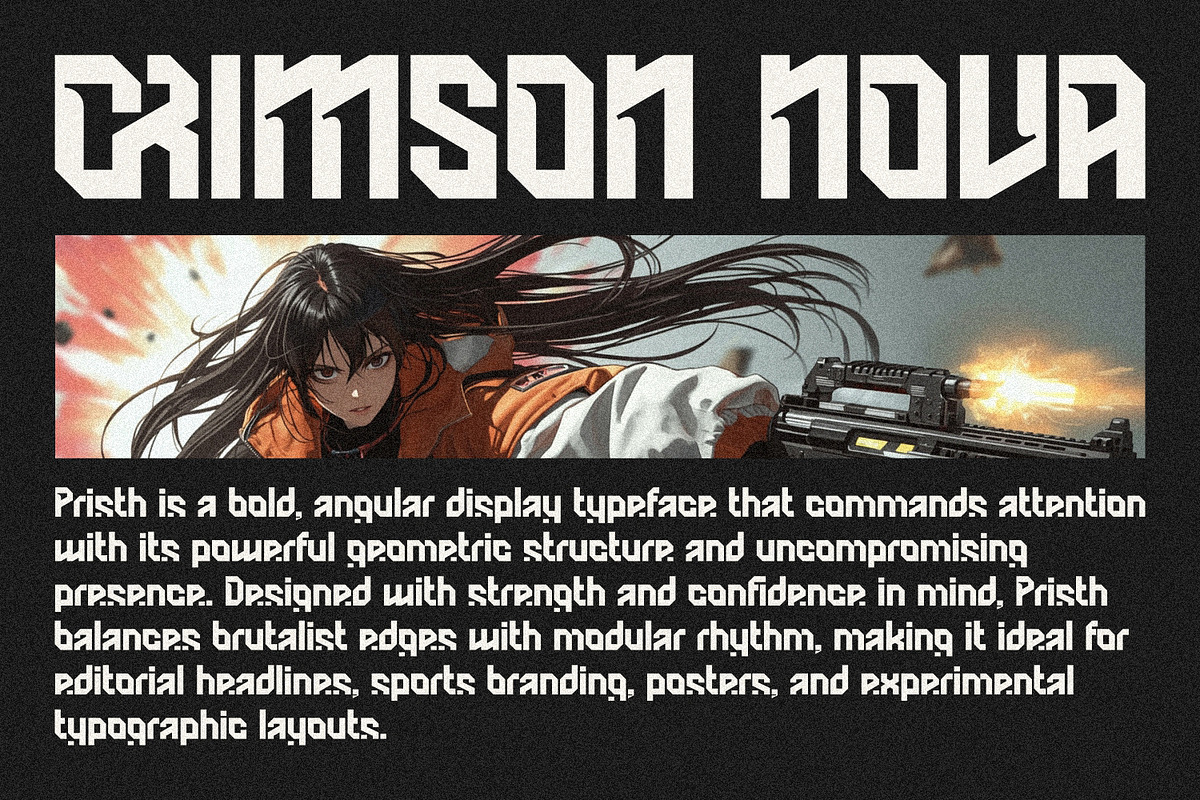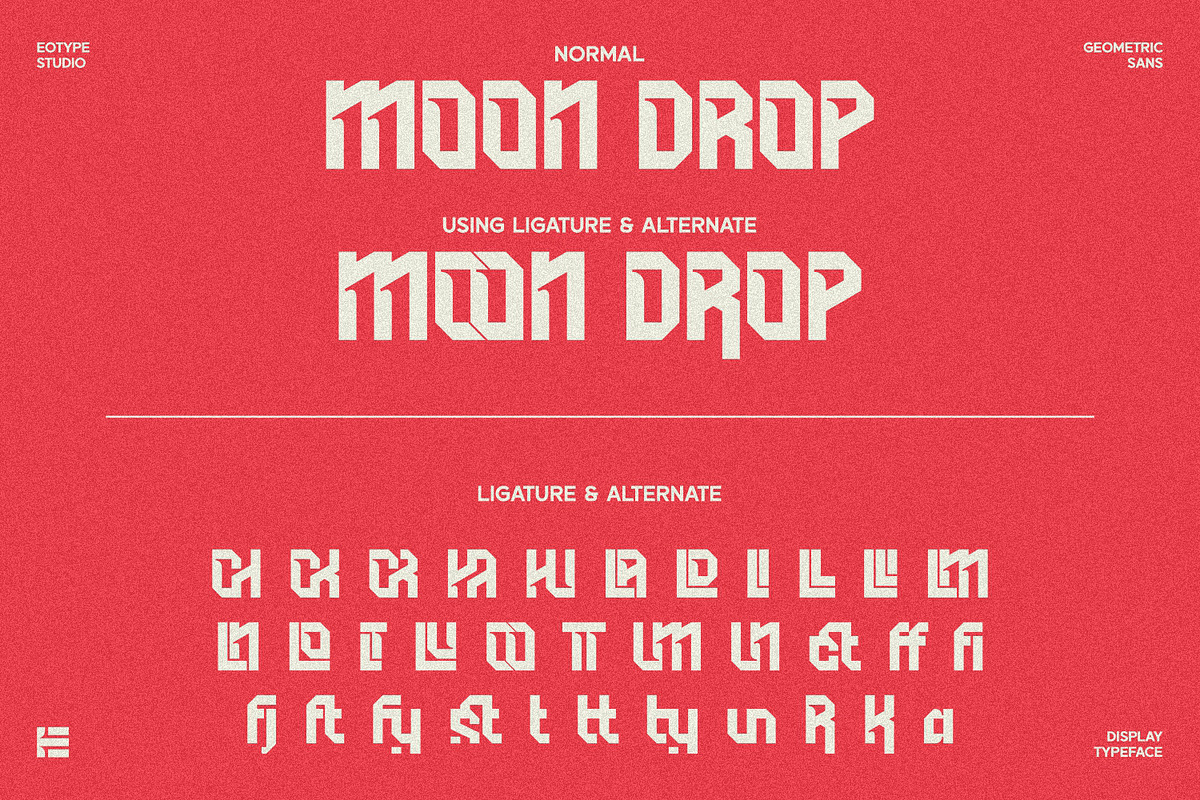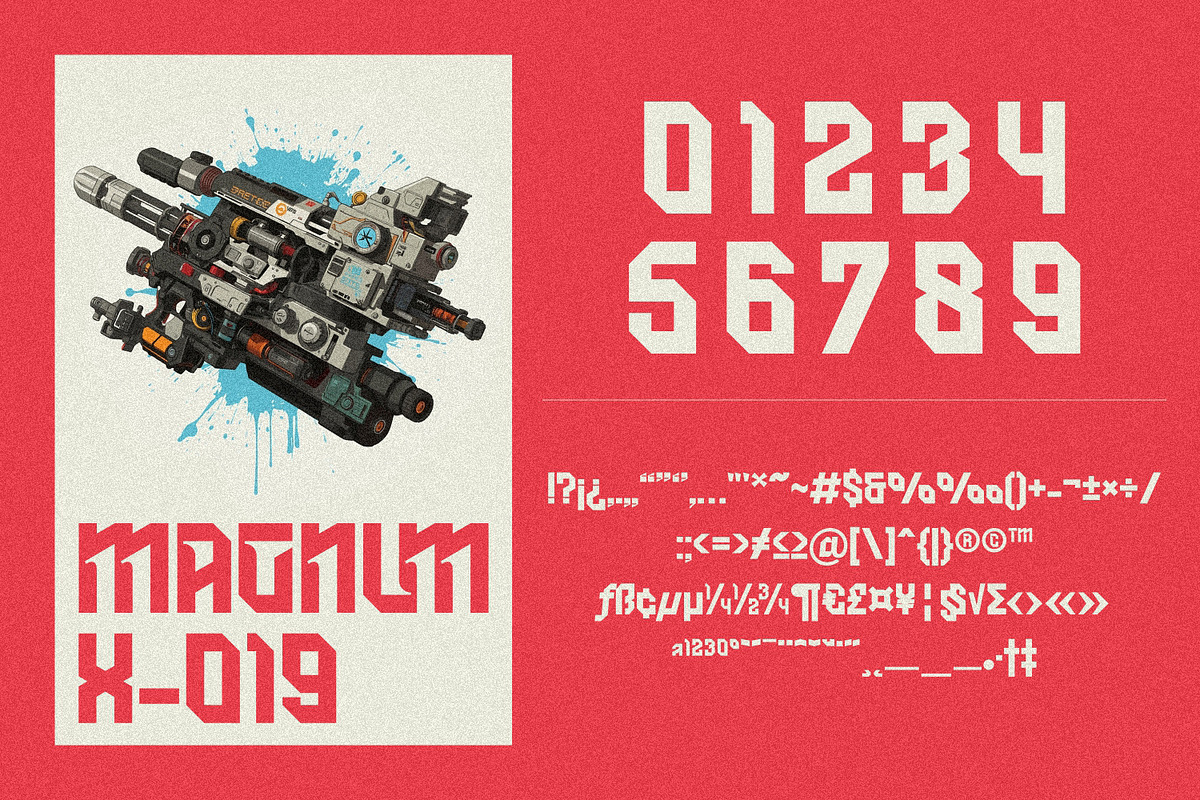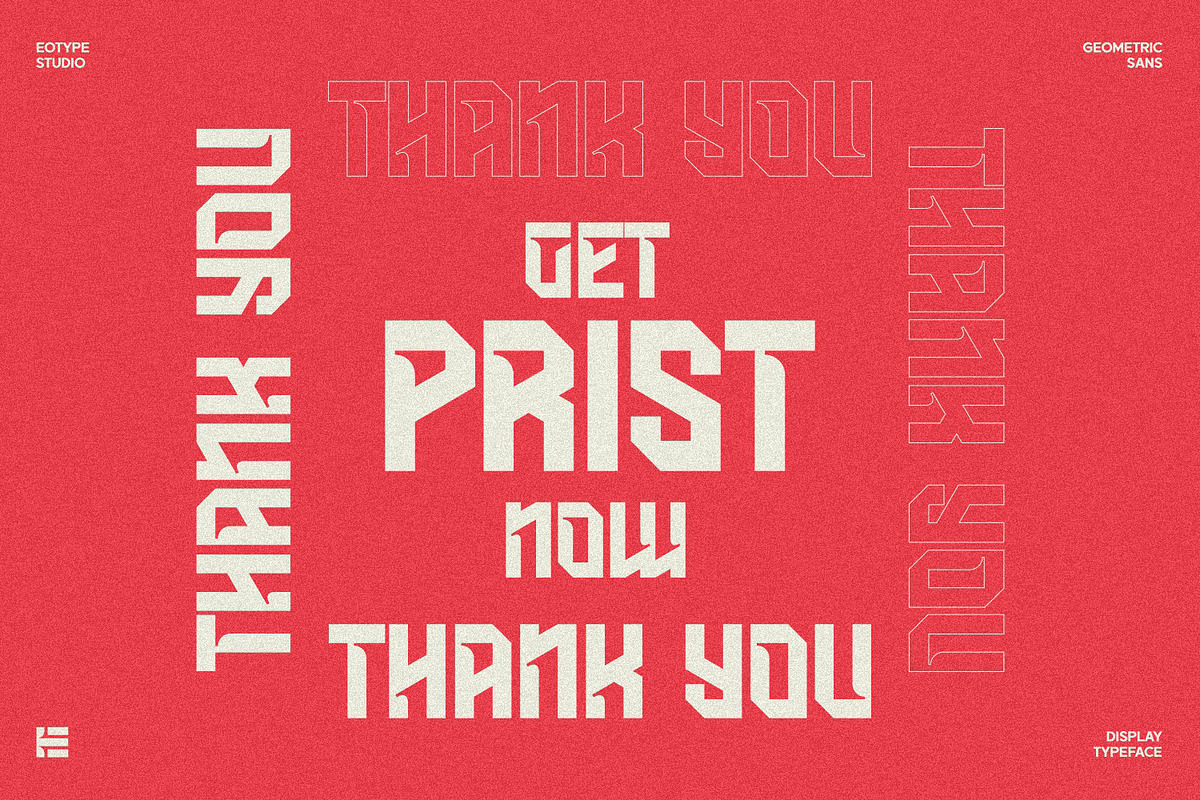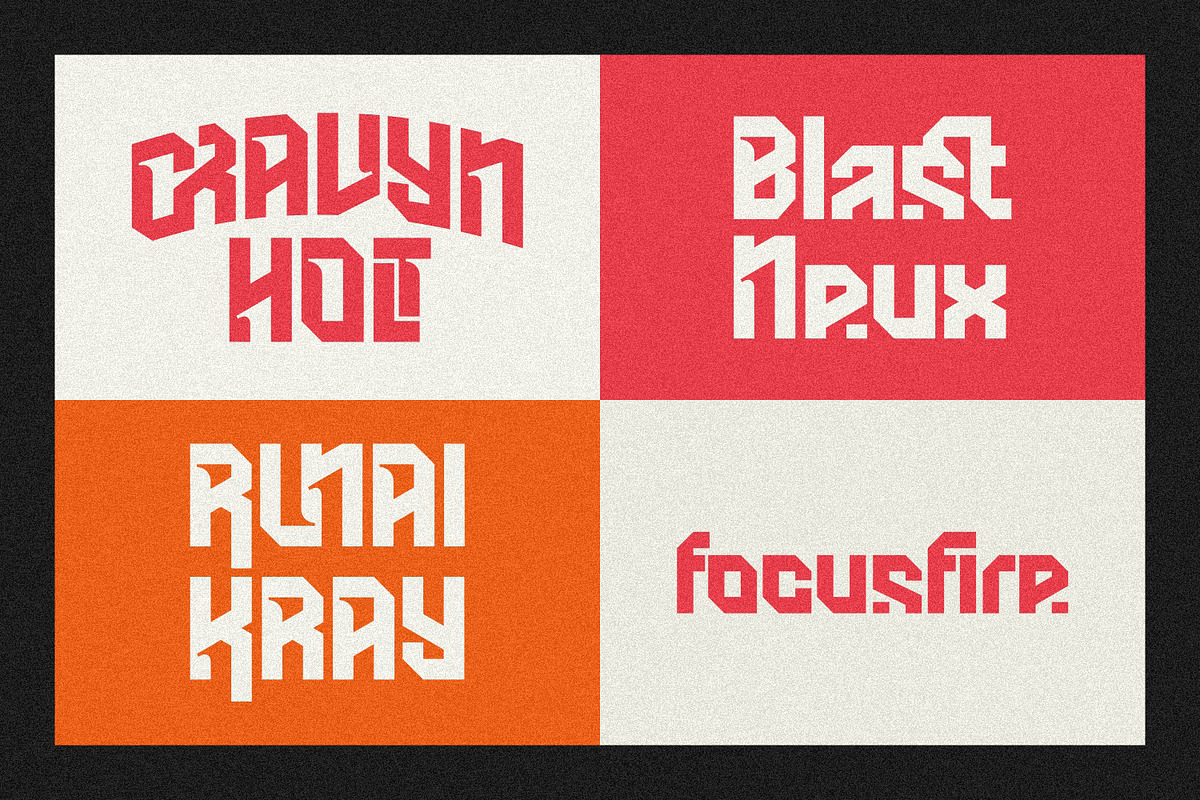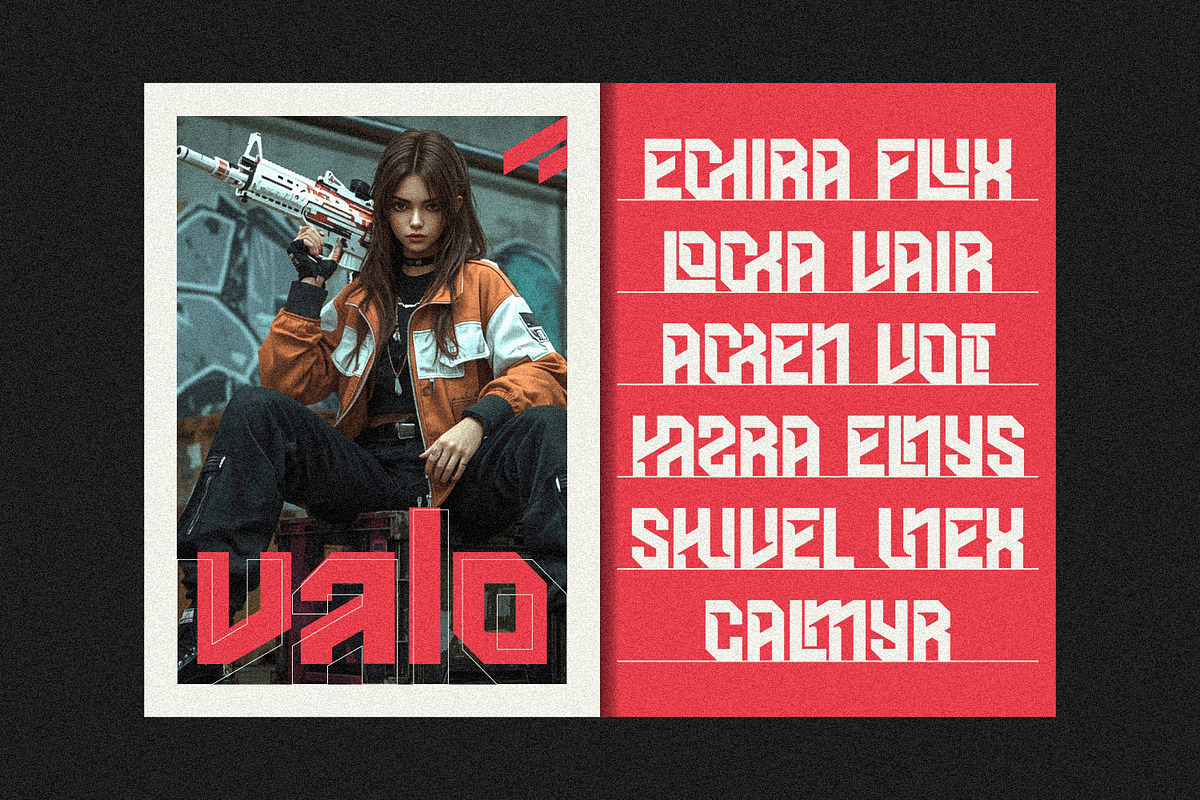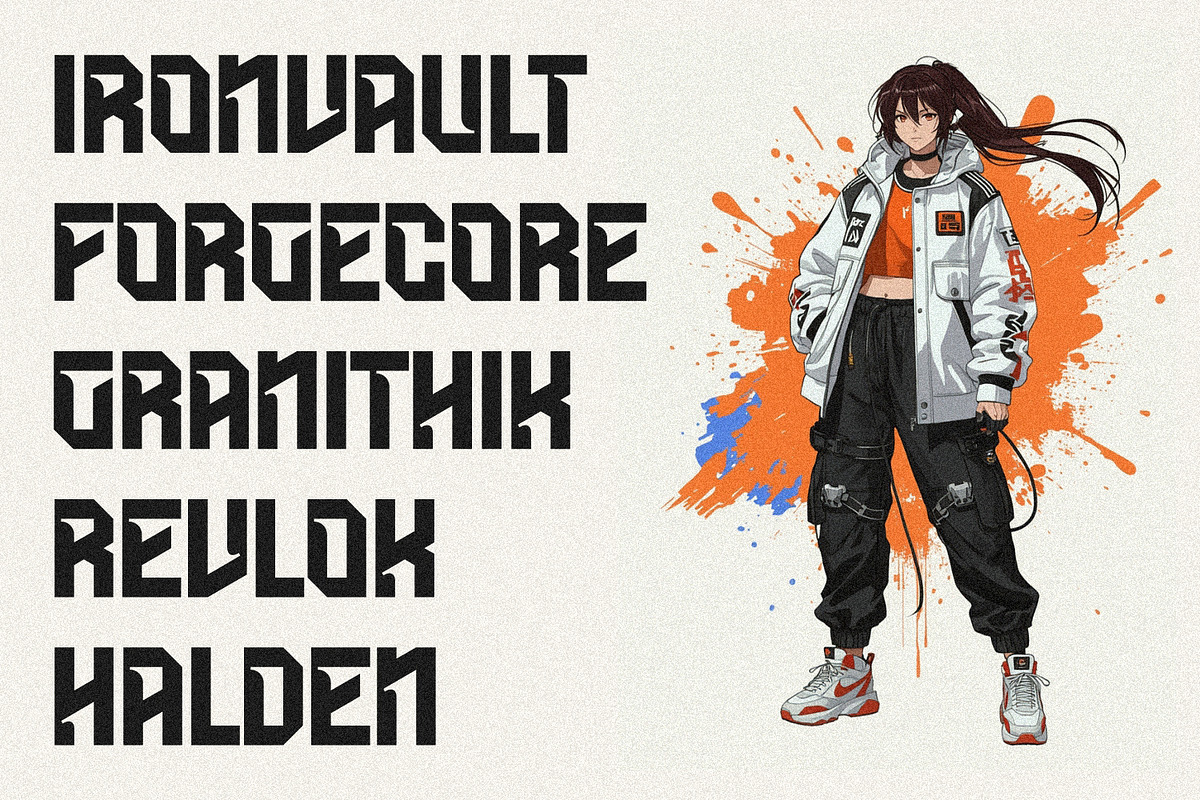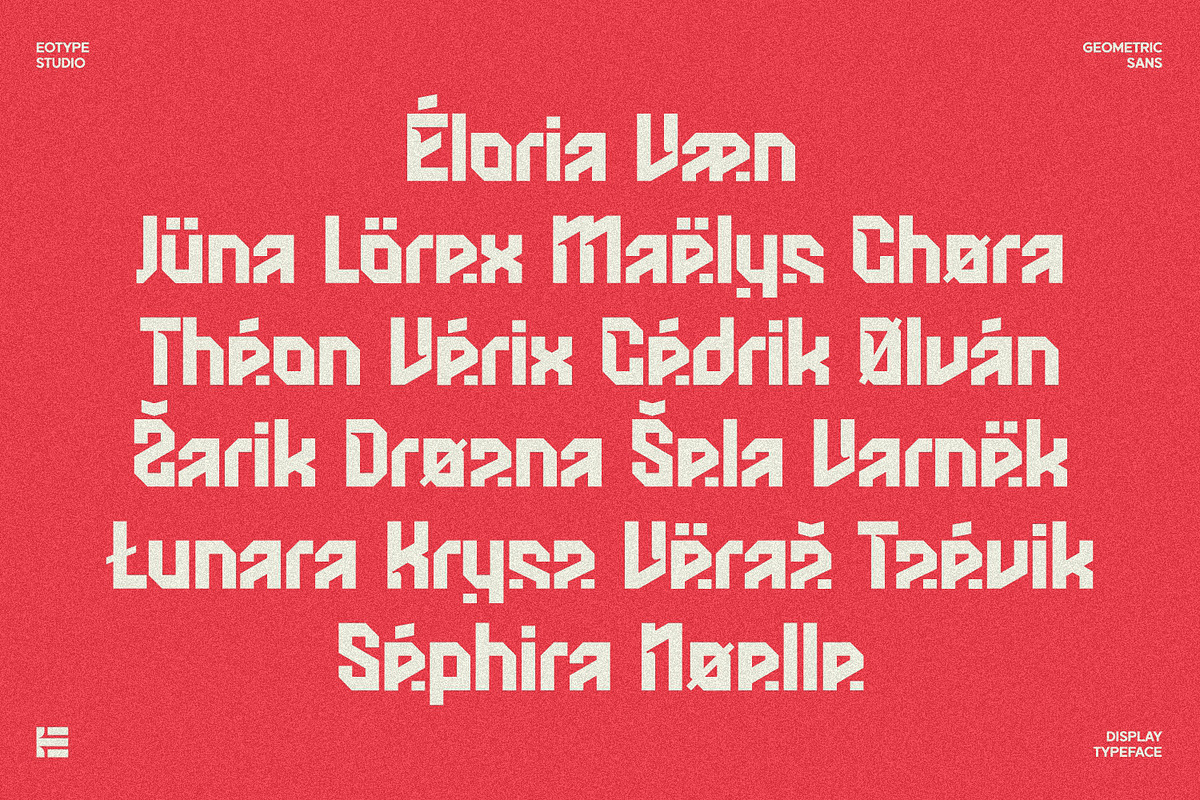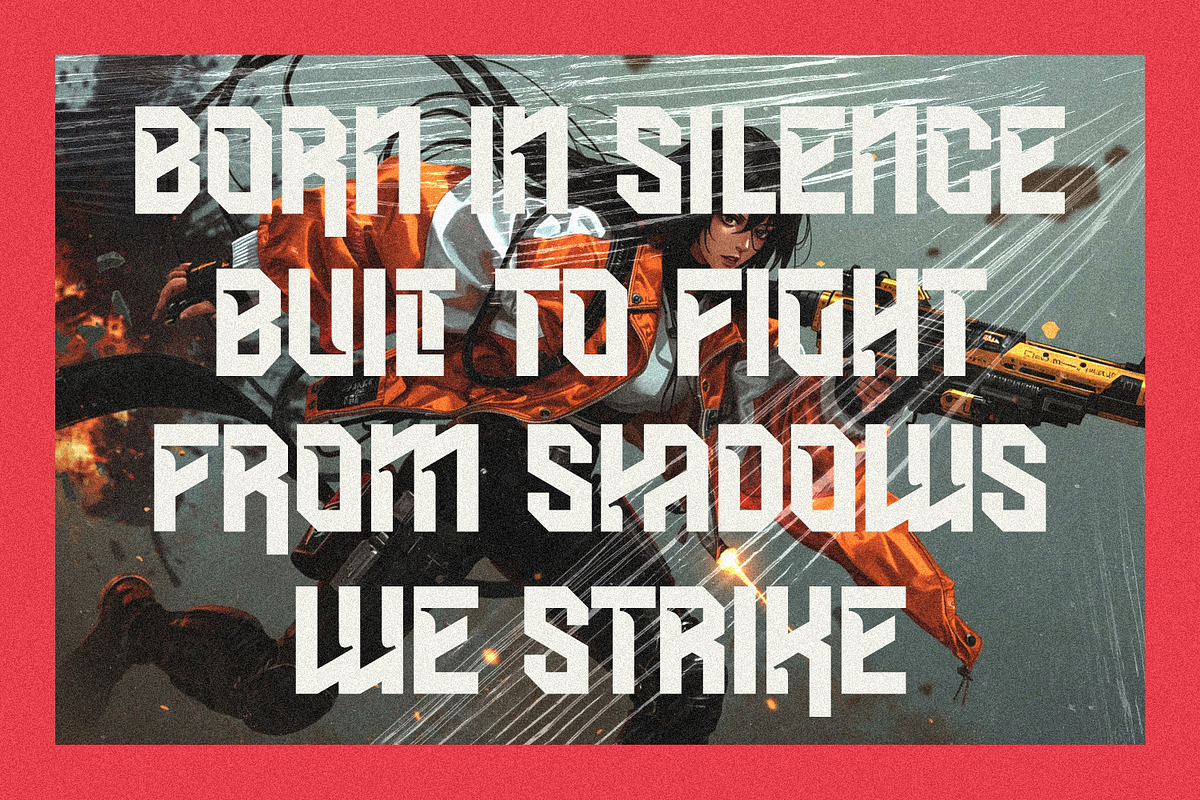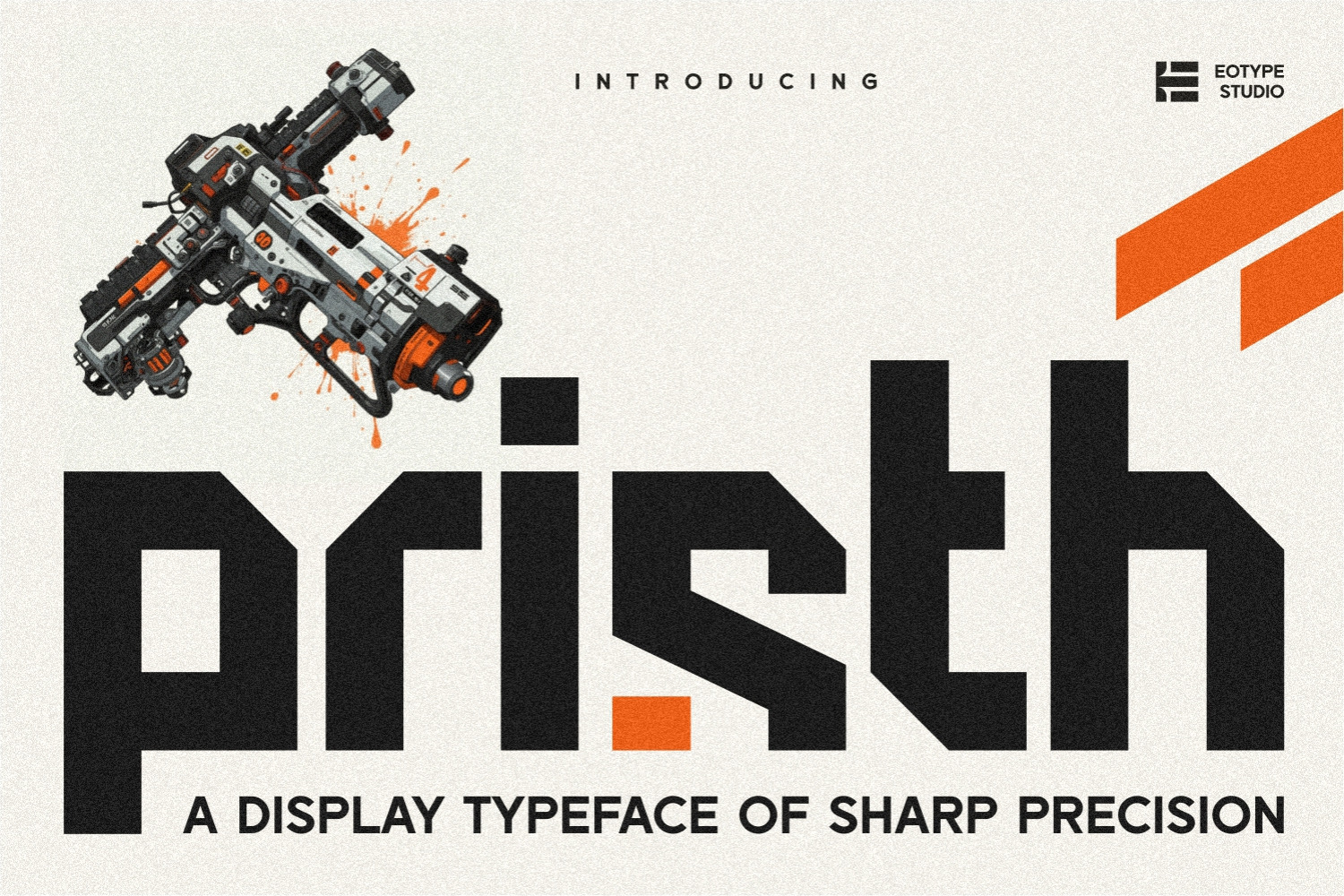
Pristh - Modern Logo Font
Pristh is a bold, angular display typeface that commands attention with its powerful geometric structure and uncompromising presence. Designed with strength and confidence in mind, Pristh balances brutalist edges with modular rhythm, making it ideal for editorial headlines, sports branding, posters, and experimental typographic layouts.